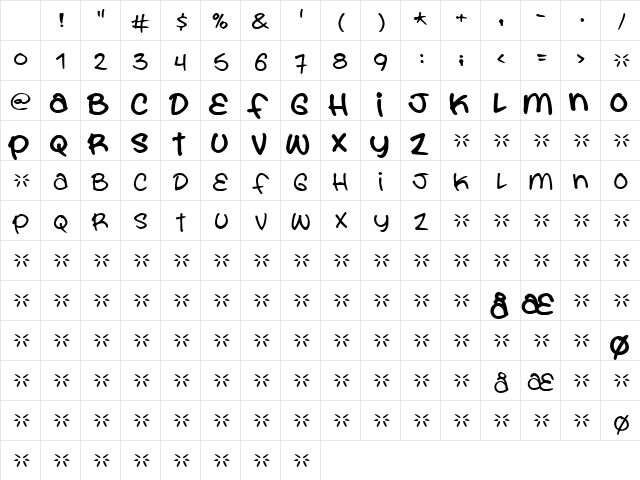
Complete You are what you eat Regular glyph index. Displaying only characters natively supported by You are what you eat Regular font.
You are what you eat is a composed and adaptable typeface that performs quietly and consistently across a wide range of design contexts.